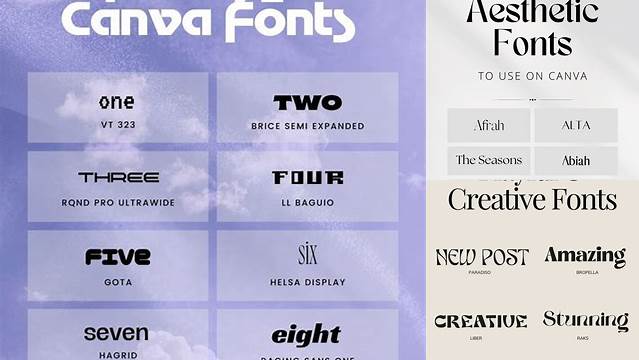
Captivating Thumbnails: Choosing Aesthetic Fonts
Hey everyone! Let's dive into the world of eye-catching thumbnails and, specifically, the magic of aesthetic fonts. I'm talking about those fonts that instantly grab your attention, communicate your video's vibe, and make people click! In this article, we'll explore the ins and outs of choosing the perfect aesthetic fonts for your thumbnails, ensuring your content stands out in a crowded digital landscape. We'll cover everything from font styles and readability to the emotional impact fonts can create. Trust me, guys, selecting the right font is a game-changer. Let's get started!
Understanding the Power of Aesthetic Fonts in Thumbnails
Alright, first things first: Why are aesthetic fonts so darn important for your thumbnails? Well, think of your thumbnail as a tiny billboard. It's the first thing people see when they're scrolling through YouTube, TikTok, or any other platform. It's your chance to make a killer first impression. Aesthetic fonts, the right font, can be the difference between a viewer quickly scrolling past your video and excitedly clicking to learn more. A well-chosen font instantly communicates the tone and subject matter of your video. Is it a fun, quirky tutorial? A serious, informative documentary? A dramatic, suspenseful trailer? The font you choose silently tells viewers what to expect. Choosing the perfect font can enhance your video's appeal, ensuring the viewers are more inclined to click. Furthermore, in today's visually saturated world, we're bombarded with information. Therefore, your thumbnail must be clear and concise. A readable font is paramount; imagine using a super stylish but illegible font. Viewers won't understand what the video is about, and they'll keep scrolling. So, readability is non-negotiable.
Selecting a font that complements your video's theme is also critical. If your video is about a vibrant travel adventure, maybe a playful, bold font is suitable. Conversely, for a more sophisticated topic, such as finance or technology, a clean, modern font is the better choice. The font should visually represent your video's essence. The font should be something that matches your niche and creates a recognizable brand identity. Consistency is key to building a brand. Using similar fonts and styles across your thumbnails helps create a visual identity that viewers will recognize and associate with your content. The visual language will ensure that your videos become immediately recognizable in a sea of content.
The Impact of First Impressions on Click-Through Rates
Your thumbnail isn't just an image; it's your introduction, your sales pitch, your hook! The aesthetic fonts you use can have a huge impact on the success of your video. Because videos with attractive thumbnails are often clicked more, the role of thumbnails is significant. The font is an important element of your thumbnail, so it is important to choose your fonts wisely.
Exploring Different Aesthetic Font Styles for Thumbnails
Now, let's talk about the fun part: font styles! The world of fonts is incredibly diverse, with options to suit any style or video type. Let's break down some popular categories of aesthetic fonts. Each has its own unique qualities and can evoke different emotions and associations. From elegant serifs to quirky hand-drawn styles, you'll find a wealth of options to elevate your thumbnails. It's all about finding the right fit for your content and personality. This is the part where you get to express your creativity!
Serif Fonts: Classic Elegance and Sophistication
Serif fonts are those with the little decorative strokes (serifs) at the ends of the letters. Think of fonts like Times New Roman or Georgia. These fonts are often associated with classic elegance, sophistication, and a sense of authority. They work well for thumbnails that aim to convey trust, credibility, and professionalism. They're a safe bet for topics like business, education, and news. Serif fonts have a timeless appeal that has been around for ages. But don't assume they're boring! Some modern serifs offer a fresh take on the classic style, adding a touch of personality while maintaining their inherent grace.
Sans-Serif Fonts: Modern Minimalism and Clarity
Sans-serif fonts, on the other hand, lack those little strokes. They're clean, modern, and incredibly versatile. Think of fonts like Arial or Helvetica. These are great for thumbnails that need to be easily readable at a glance, especially on smaller screens. They convey a sense of modernity, simplicity, and approachability. They're a popular choice for tech tutorials, lifestyle videos, and any content that aims to feel fresh and contemporary. The clean lines of sans-serif fonts make them incredibly adaptable. They pair well with various images and backgrounds, and their simplicity ensures your message is clear.
Script Fonts: Personal Touch and Creativity
Script fonts mimic handwriting, giving your thumbnails a personal, creative, and sometimes whimsical touch. Think of fonts like Brush Script or Lobster. They can add a sense of playfulness, warmth, and personality. Script fonts are perfect for beauty and fashion content, travel vlogs, and anything that wants to feel a bit more handcrafted and unique. It is important to use script fonts carefully. They can sometimes be hard to read, so use them in moderation and ensure they're large enough to be clear. However, when used correctly, script fonts add a touch of elegance and charm.
Display Fonts: Bold Statements and Eye-Catching Designs
Display fonts are the attention-grabbers! These are fonts designed to be used in large sizes, making a bold statement and catching the eye. They come in all sorts of styles, from chunky and bold to quirky and artistic. They're perfect for creating thumbnails that demand attention. Display fonts work well for gaming videos, entertainment content, and anything that needs to shout